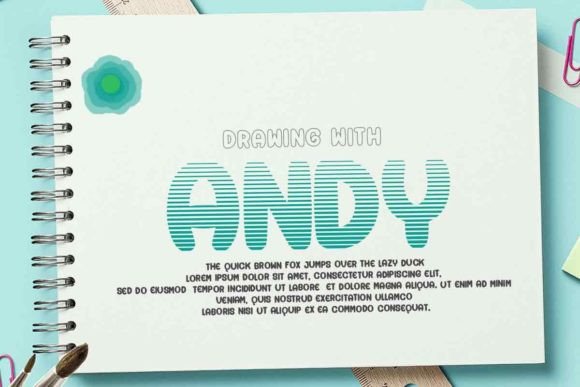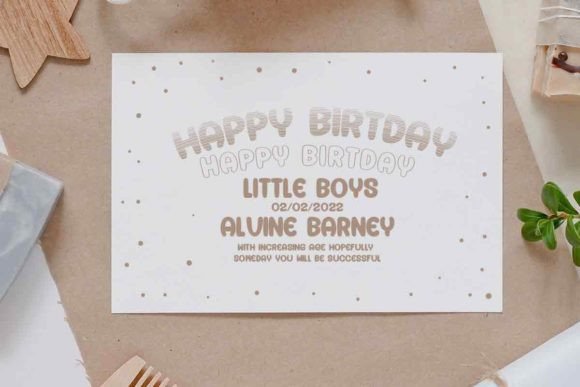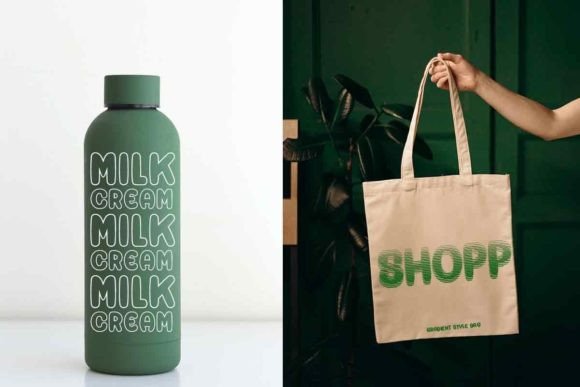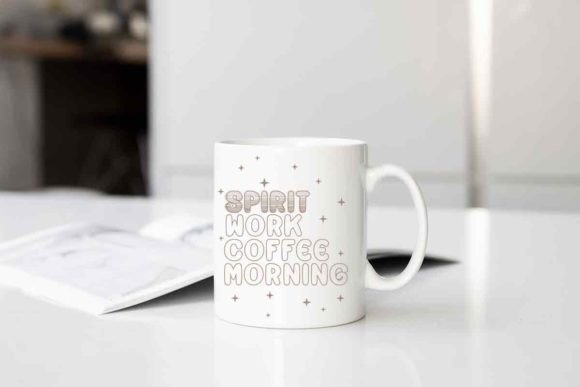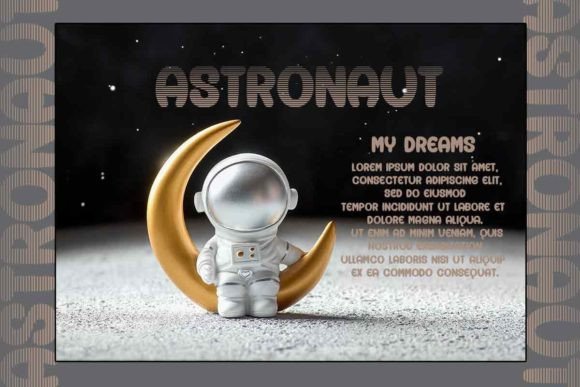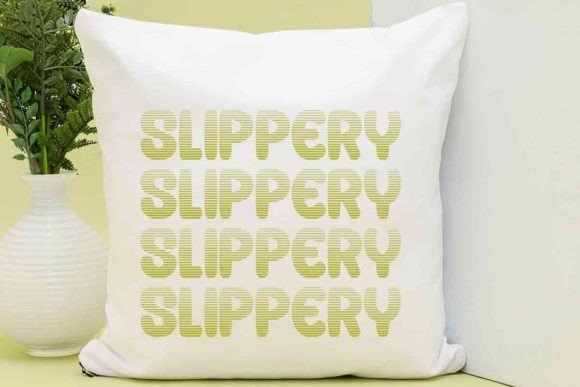
Introduction to My Boys My Boss Font
My Boys My Boss is a fun and friendly display font.
Add this chunky lettered font to your designs and notice how it makes them come alive .
Key Features of My Boys My Boss Font
Why Choose My Boys My Boss Font?